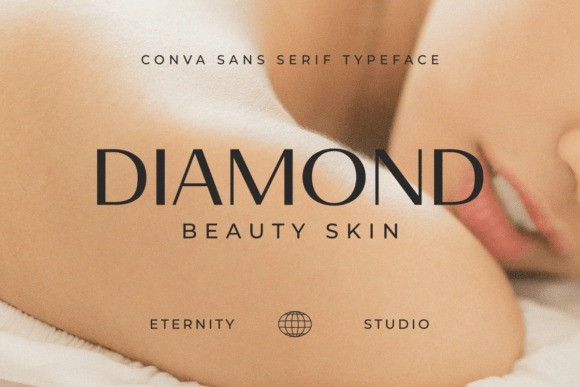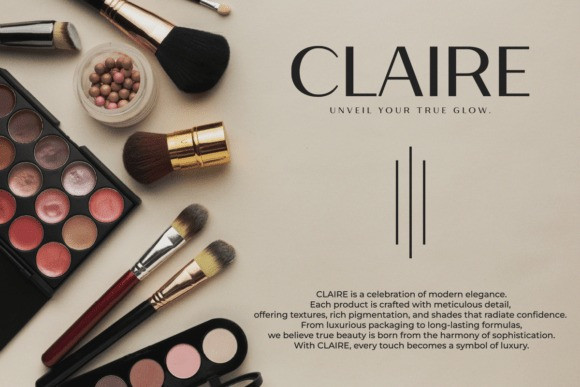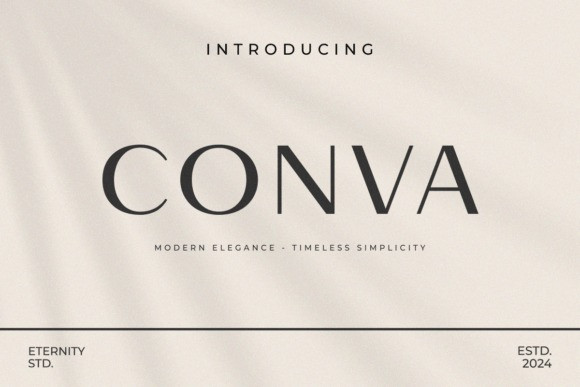
Et Conva Font
ET Conva Font is a clean and modern sans serif typeface designed for versatility and readability. With its balanced proportions and minimalistic style, this font works perfectly for both digital and print projects, making it a reliable choice for designers. Give your projects a modern, professional, and timeless look with ET Conva.